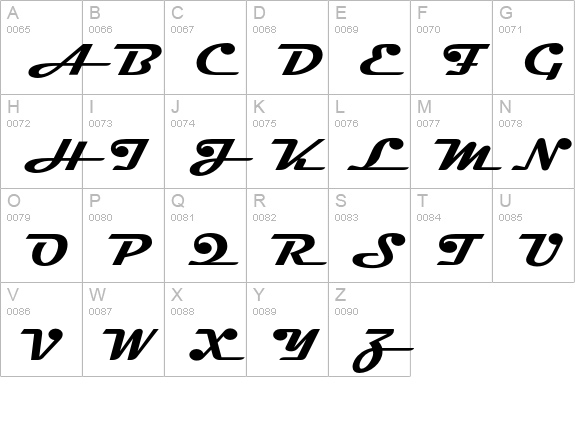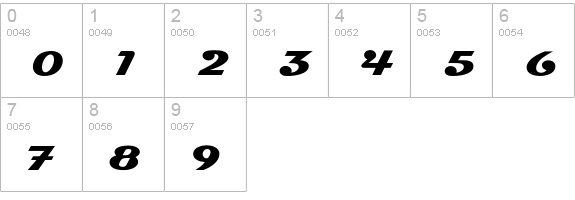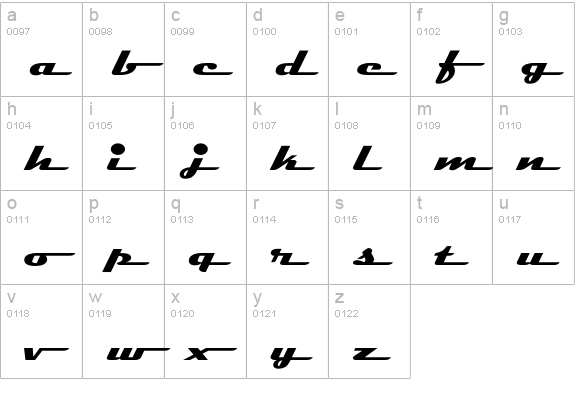
Magneto-BoldExtended Font Details
Magneto-BoldExtended is a captivating and bold font that exudes an aura of power and strength. With its extended letterforms, this font commands attention and demands to be noticed. The thick strokes and sharp edges add a touch of modernity and edginess to any design. Whether you're designing a logo, creating eye-catching headlines, or crafting a poster that needs to make a statement, Magneto-BoldExtended is the perfect choice. Its unique and distinctive look sets it apart from other fonts, allowing your design to stand out in a crowd. And the best part? Magneto-BoldExtended is completely free! That's right, you can download this incredible font without spending a dime. Simply head over to FontsMarket.com and get your hands on this powerful and captivating typeface. It's never been easier to add a touch of boldness and sophistication to your designs. So why wait? Don't miss out on this amazing opportunity to enhance your creativity with Magneto-BoldExtended. Download it today and unleash your design potential.